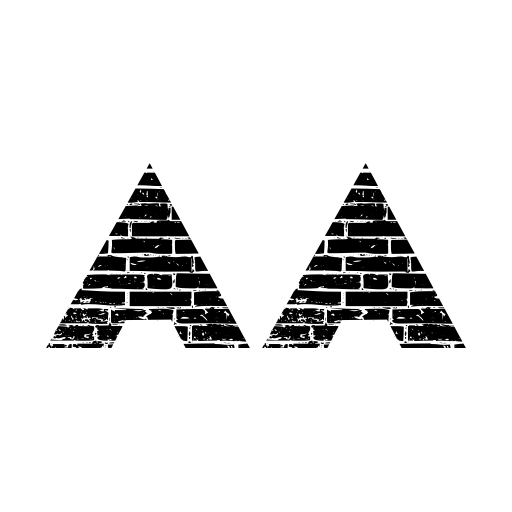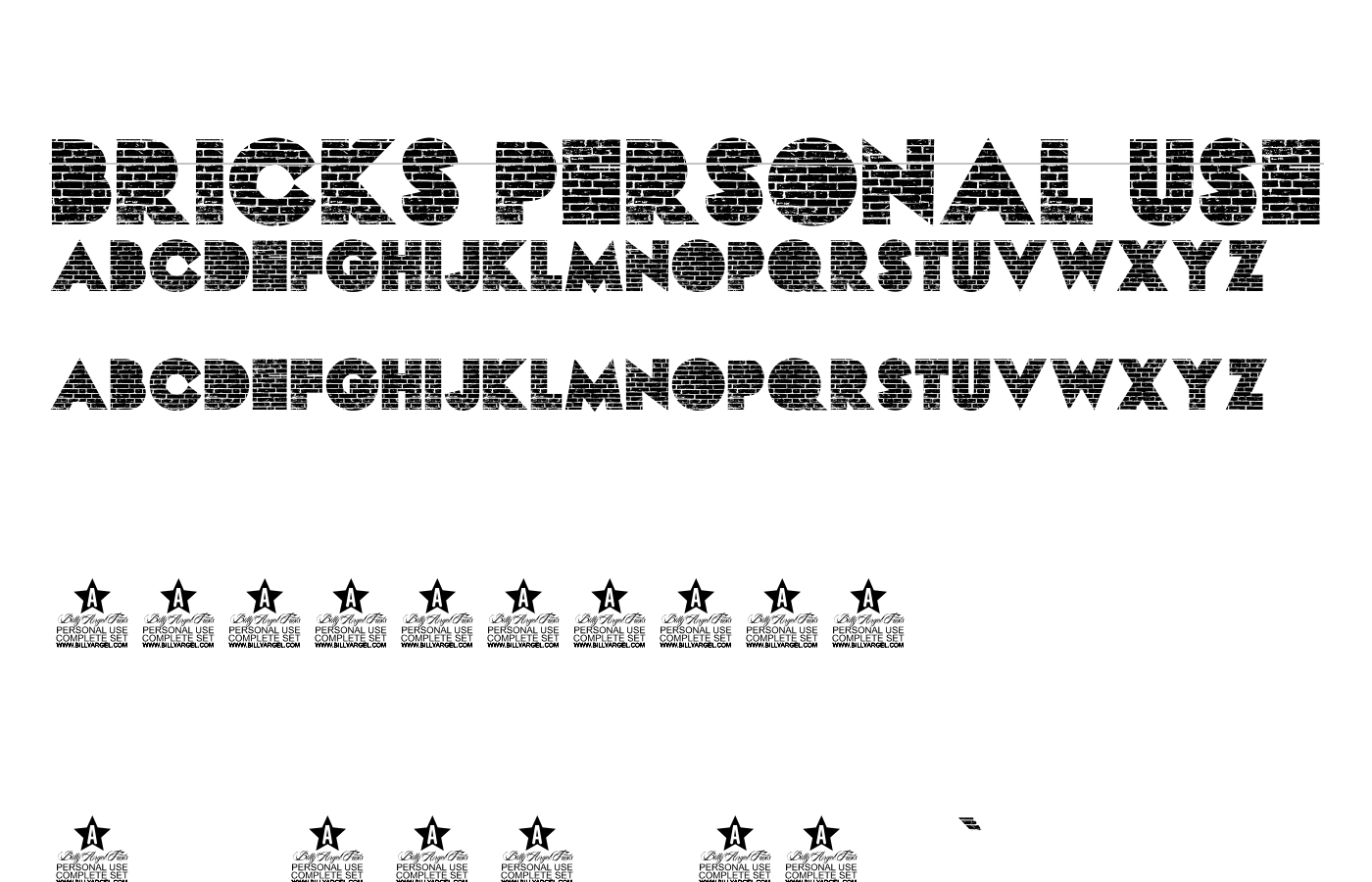
BRICKS PERSONAL USE is a bold, stencil-style sans serif font with a distinctive textured brick pattern inside each letter, creating a rugged and urban feel. Its all-uppercase design features geometric, solid letterforms with high contrast between the filled and cut-out areas, making it perfect for eye-catching headlines, logos, and posters that need a strong, industrial vibe. This font works best in creative projects that want to evoke a sense of strength, construction, or street culture.
BRICKS PERSONAL USE Font
About BRICKS PERSONAL USE Font
| Font family | BRICKS PERSONAL USE Font |